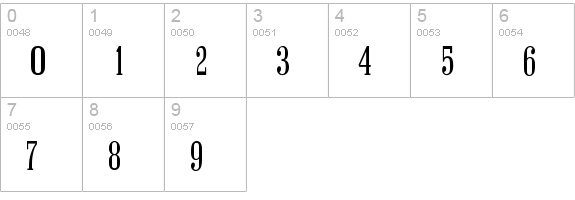
Colonel-Light is a refined, elegant variant in the Colonel typeface family \xE2\x80\x94 well suited to elegant body text, refined sub-headings, and luxury branding.
Colonel-Light font is a striking and elegant typeface that exudes sophistication and modernity. With its clean lines and sharp edges, this font is perfect for adding a touch of class to any design project. The Colonel-Light font is versatile and can be used for a wide range of applications, from logos and branding to editorial design and beyond. One of the best things about Colonel-Light font is that it is available for free download at FontsMarket.com. This means that you can easily access this stylish font and incorporate it into your projects without any cost. Whether you are a professional designer or just starting out, Colonel-Light font is a great choice for adding a touch of elegance to your work. Download it today and elevate your designs with this sleek and sophisticated typeface.